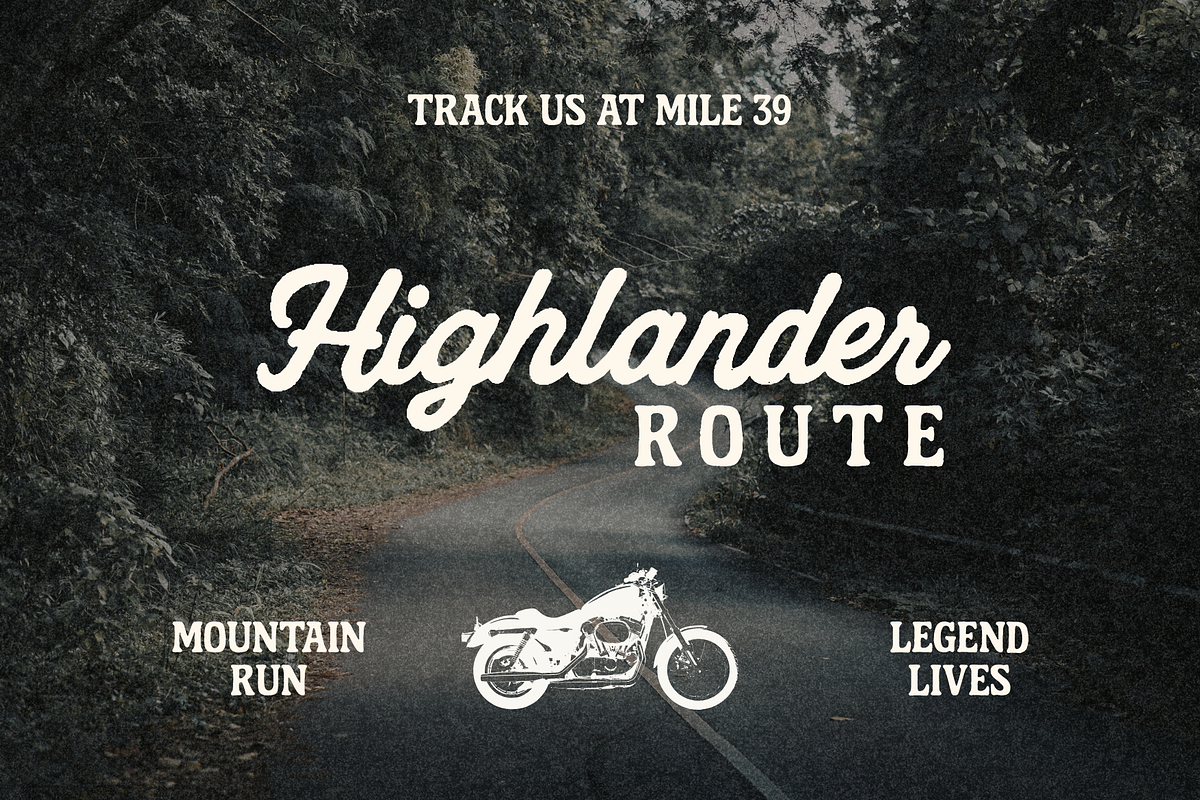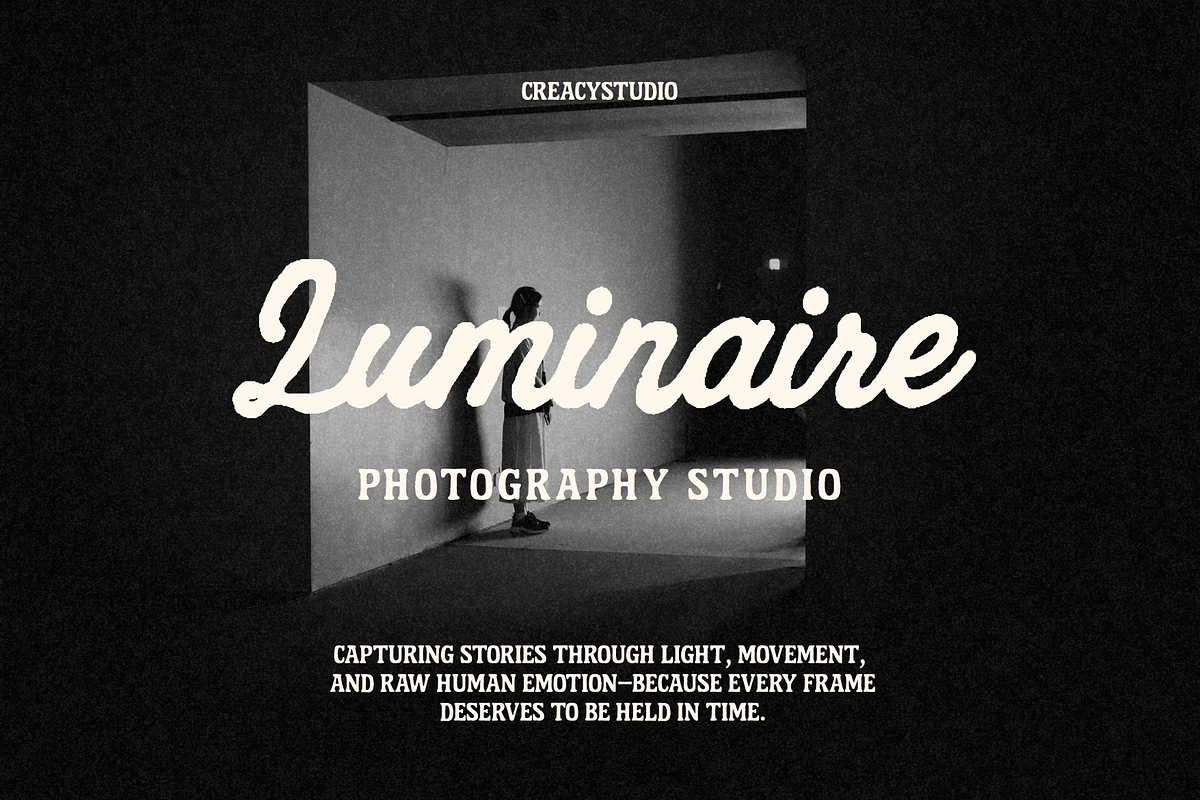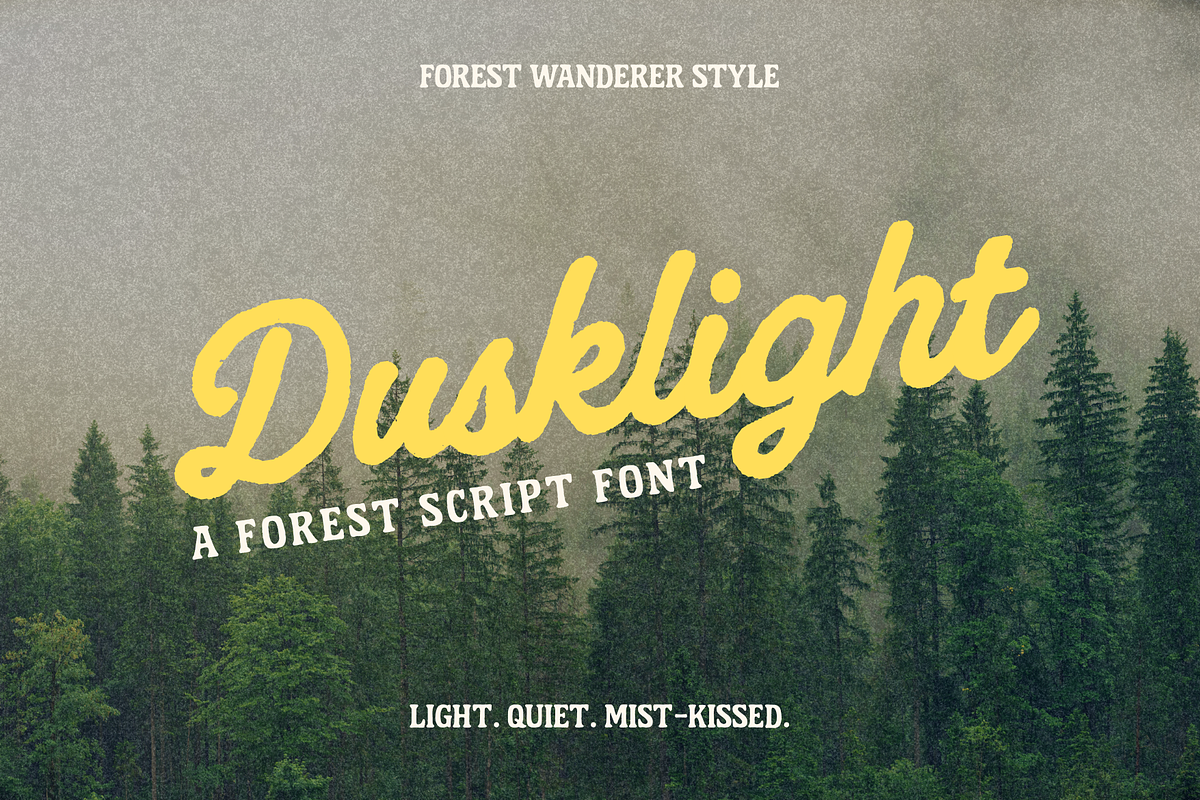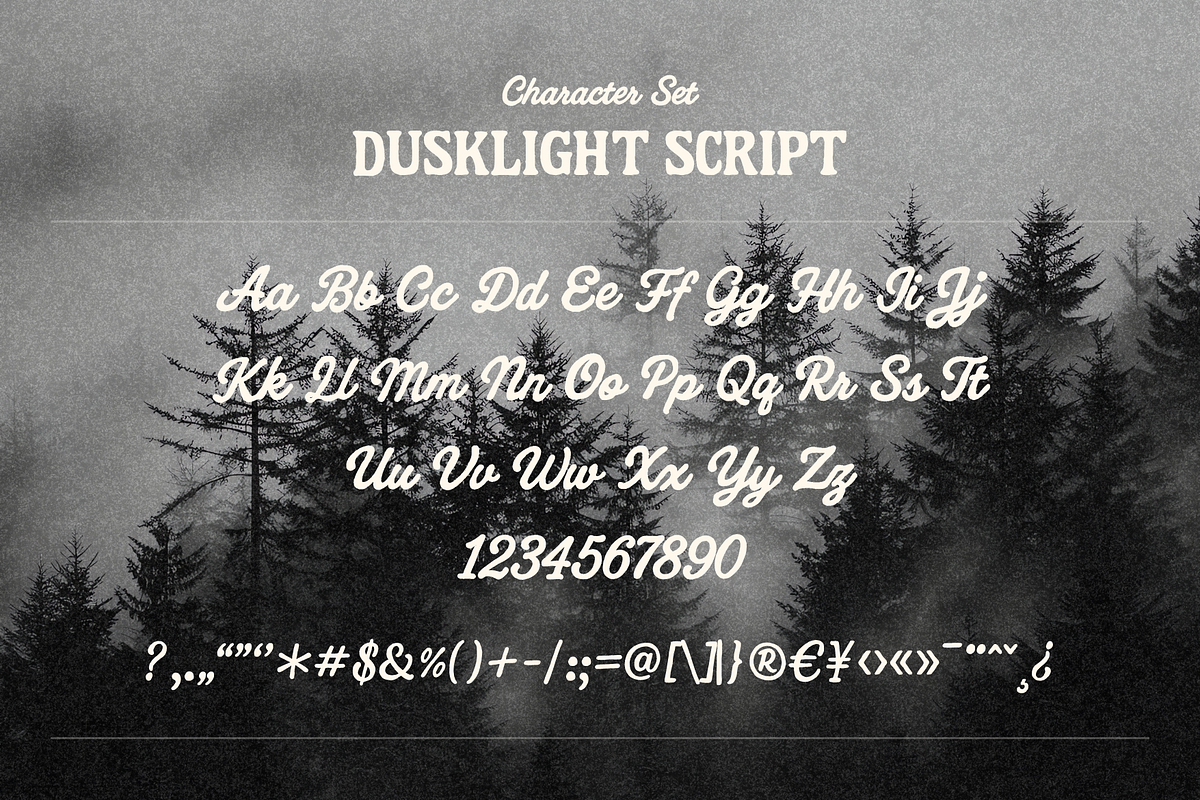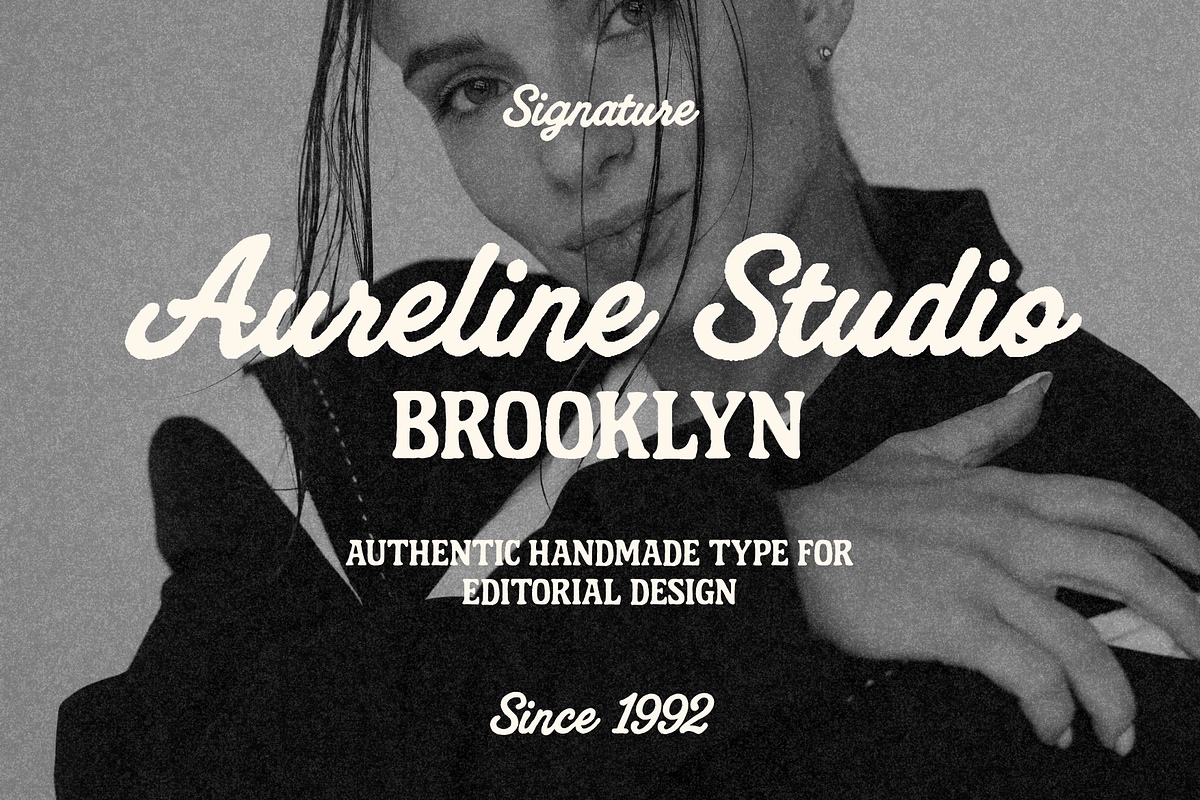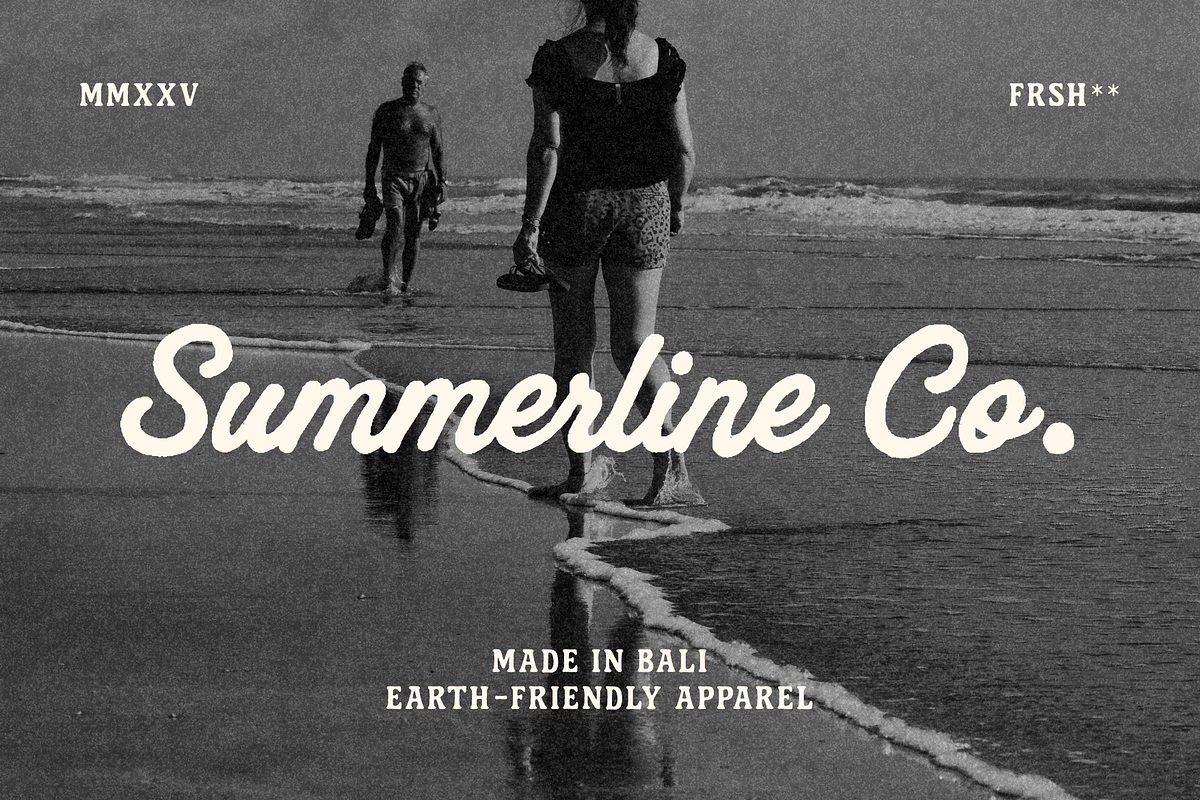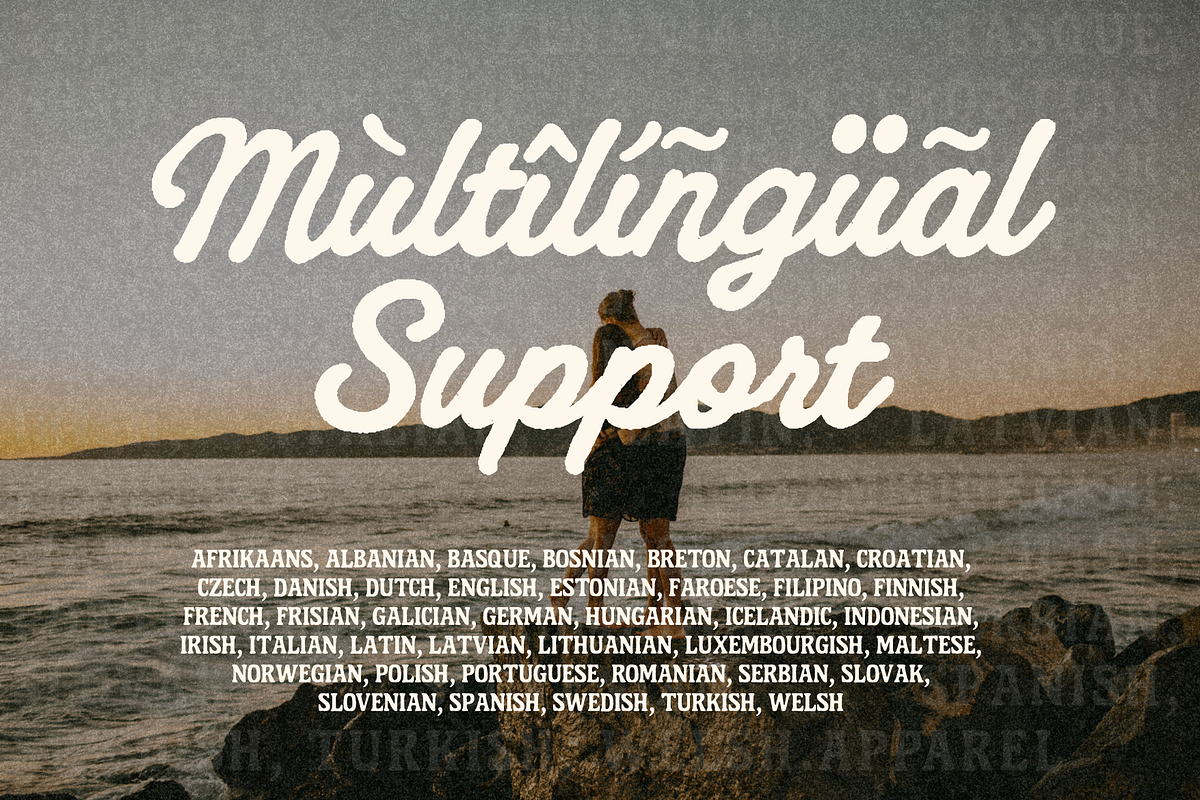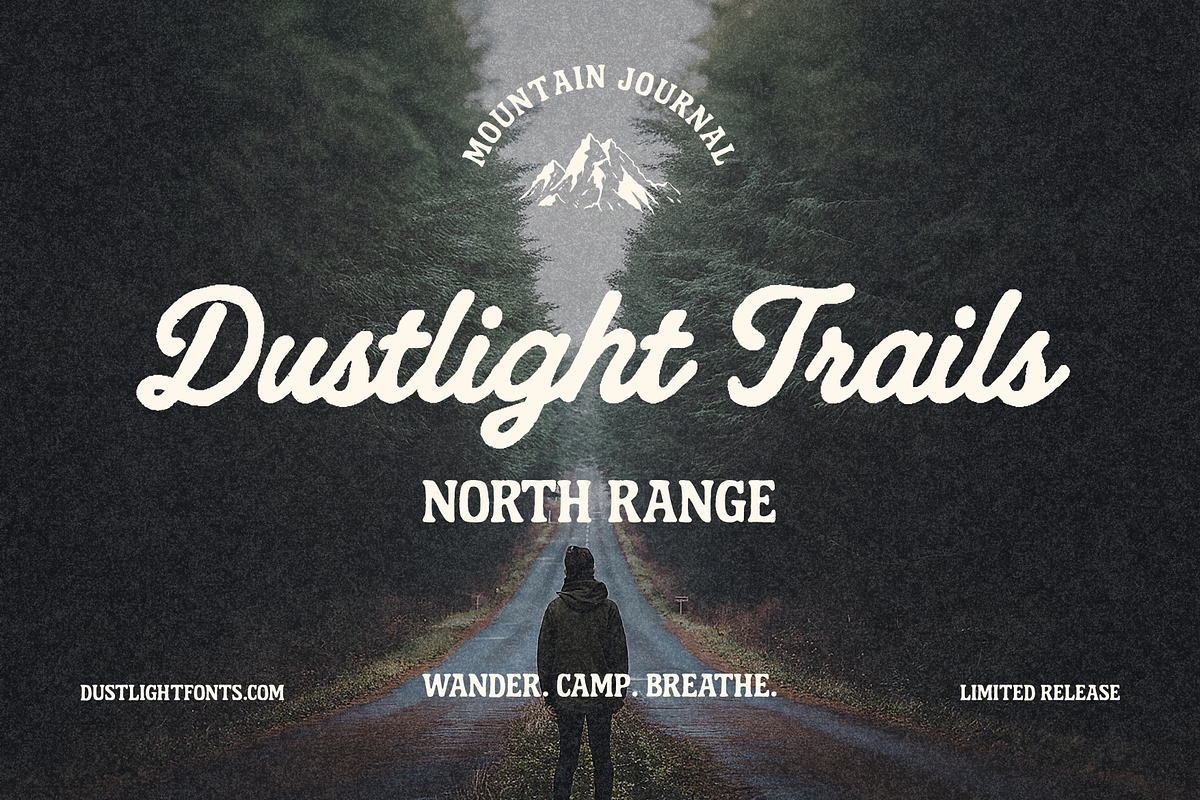
Dusklight Script – A Forest-Inspired
Dusklight Script – A Forest-Inspired Retro Script Font
Dusklight Script is a warm, handcrafted retro script font inspired by mist-kissed forests, analog film grain, and quiet moments on the trail. Designed with smooth monoline strokes, rounded terminals, and gentle retro curves, this typeface delivers a soft, nostalgic aesthetic that blends beautifully with nature-driven visuals and editorial photography.
Whether you’re building an outdoor brand, designing adventure apparel, crafting heartfelt editorial layouts, or creating expressive social media graphics, Dusklight Script brings a natural, handmade elegance that feels both rustic and refined.
- Retro script style with soft looping curves
- Medium-bold monoline strokes
- Smooth, expressive handwritten flow
- Natural analog texture for an authentic vintage feel
- Clean spacing & professional kerning
Great For
- Outdoor branding & adventure campaigns
- Photography studios
- Apparel & merch design
- Editorial layouts
- Travel posters & journals
- Handmade product packaging
- Logos, signatures & display typography
- Warm, nostalgic art direction